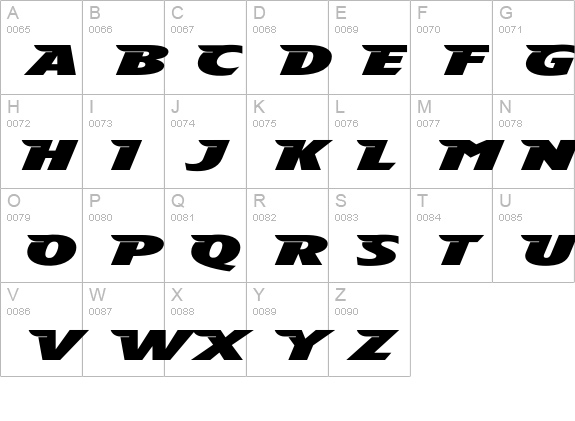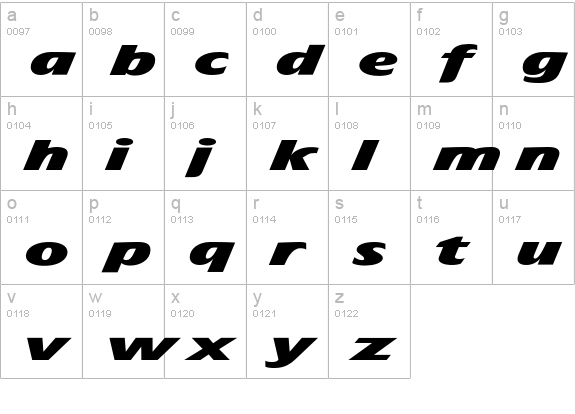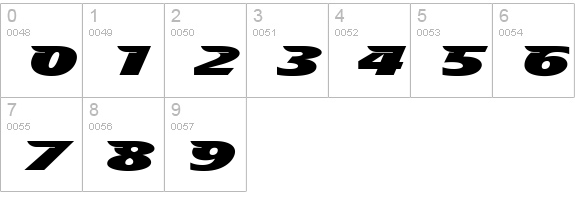
TFAvian Font Details
Introducing TFAvian, a mesmerizing font that combines elegance and sophistication with a modern twist. This font is the epitome of versatility, making it perfect for a wide range of design projects. Whether you are working on a logo, branding materials, invitations, or even a website, TFAvian will effortlessly elevate your designs to new heights. With its sleek lines and graceful curves, TFAvian exudes a sense of timeless beauty. Its unique letterforms are carefully crafted to ensure legibility while maintaining a sense of individuality. Each character is meticulously designed to harmoniously blend with one another, resulting in a cohesive and visually stunning typeface. One of the most remarkable aspects of TFAvian is that it is completely free to download. Yes, you read that right – this exquisite font is freely available at FontsMarket.com. This means that you can enhance your creative projects without spending a dime, while still achieving professional and stunning results. TFAvian is a font that speaks volumes without uttering a word. Its subtle elegance can effortlessly convey a sense of luxury, sophistication, and refinement. Whether used in headlines, body text, or even as a display typeface, TFAvian will captivate your audience and leave a lasting impression. So why wait? Unlock the potential of your designs with TFAvian. Download this beautiful font for free at FontsMarket.com and let your creativity soar to new heights. Whether you're a seasoned designer or just starting out, TFAvian is the perfect tool to bring your visions to life. Try it today and experience the limitless possibilities that this font has to offer.